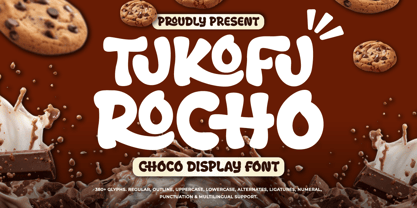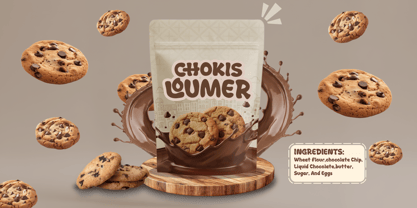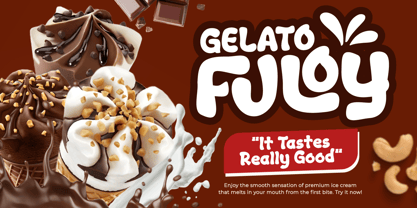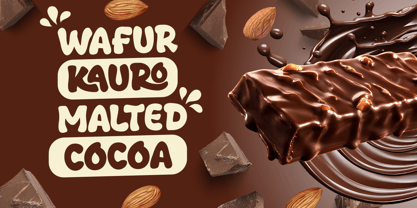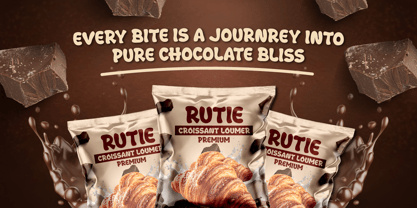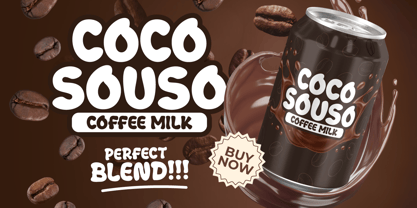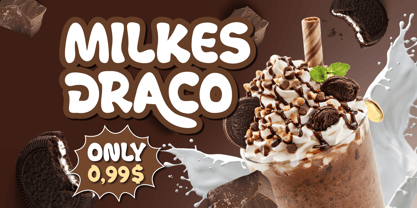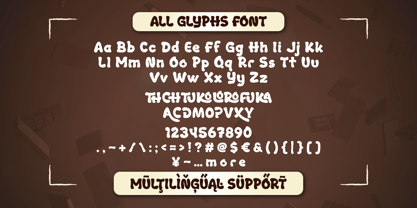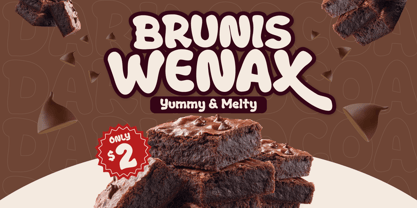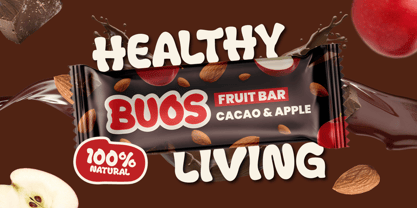
Tukofu Rocho is a chocolate-themed display font designed to bring a sweet, fun, and appetizing atmosphere to any design project. Its bold, soft, and rounded letterforms create a playful and friendly visual character, making it perfect for food-themed designs and modern snack branding.
Its solid letter structure ensures high readability across product packaging and digital promotional media. The visual characteristics, resembling food textures, make it a practical solution for Chocolate Bar label designs and Daily Break-time Snack campaigns. This font helps designers organize a clear information hierarchy across various media sizes while maintaining its unique character.
As an F&B Industry Font, Tukofu Rocho is equipped with a complete and flexible character set for bakery, biscuit, and snack packaging branding. Its application adds value to design projects aiming to consistently and professionally highlight an appetizing appeal. Tukofu Rocho offers a stable typography solution for creating engaging visual statements in the food industry marketplace.